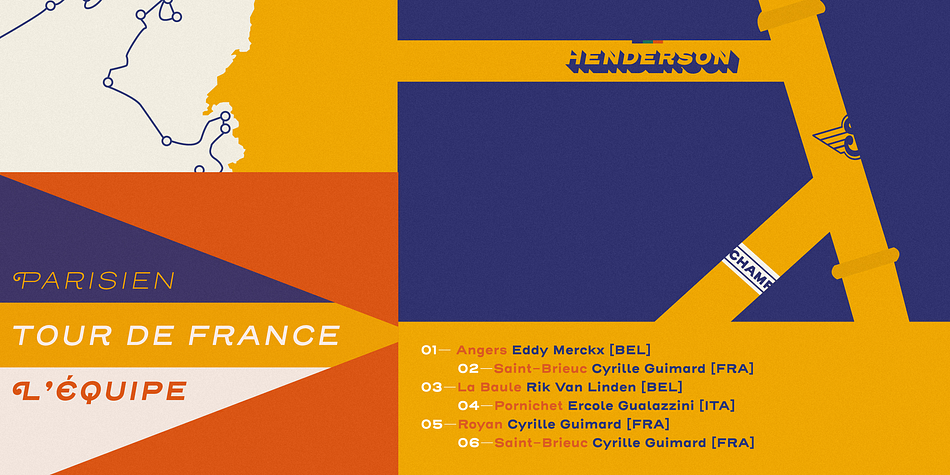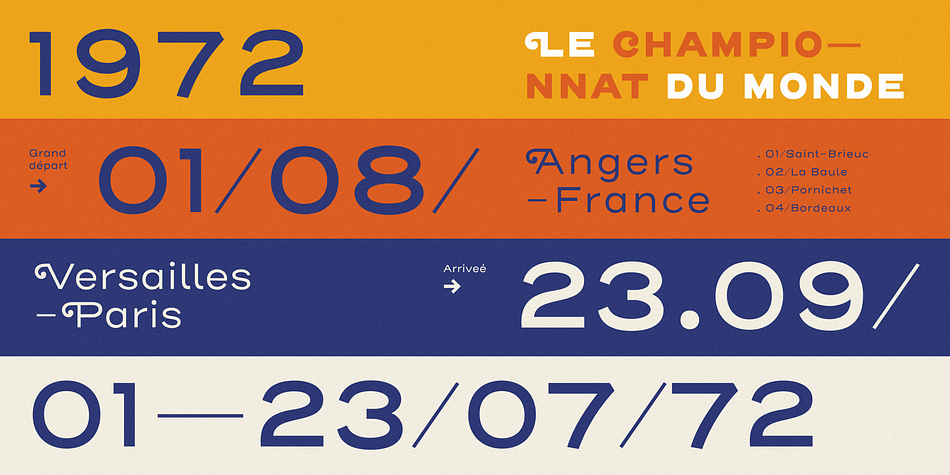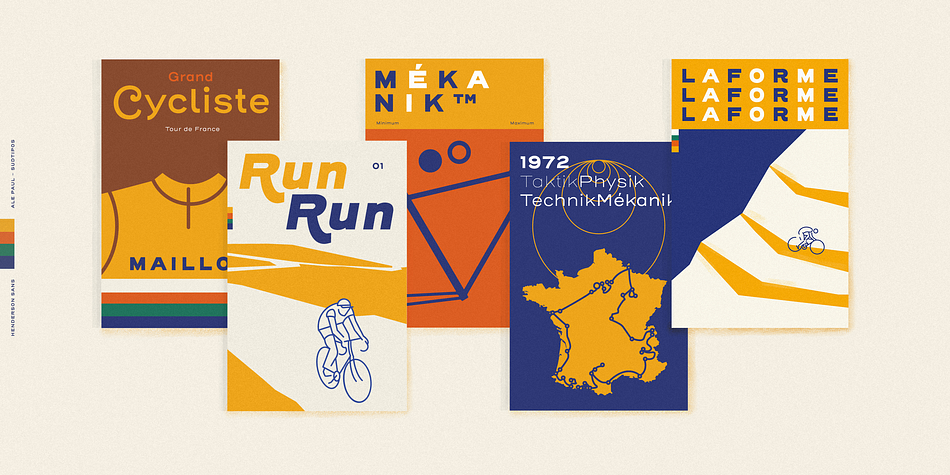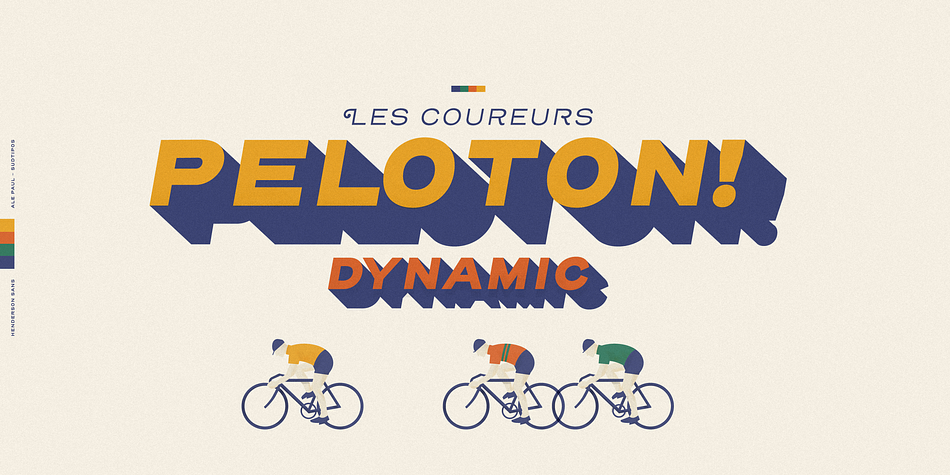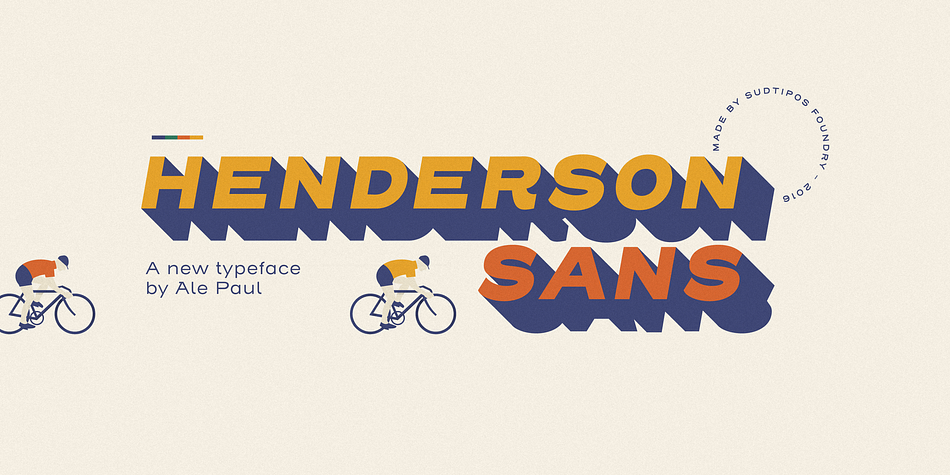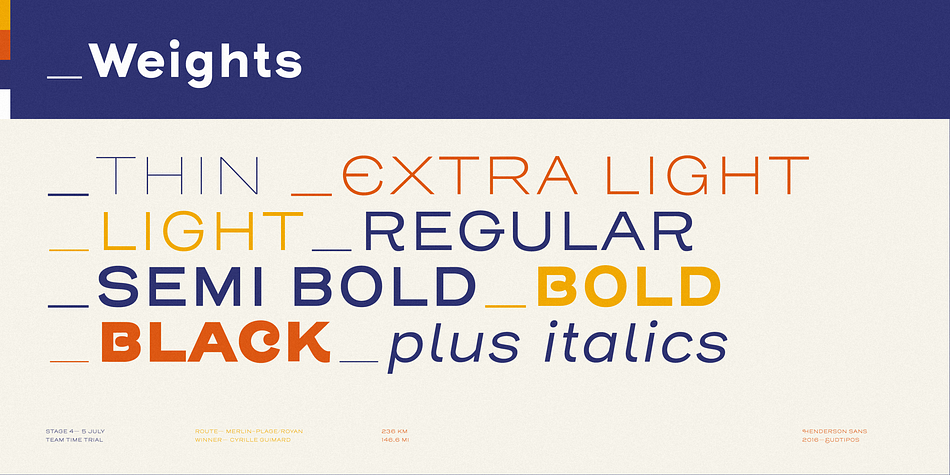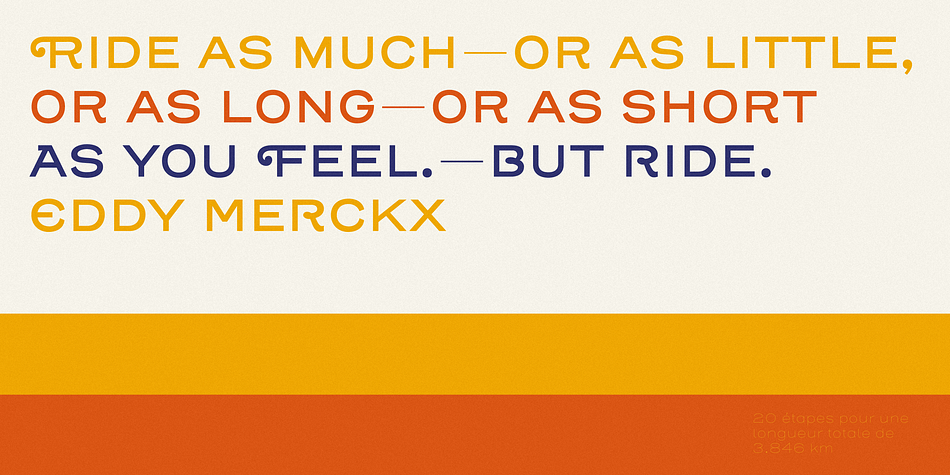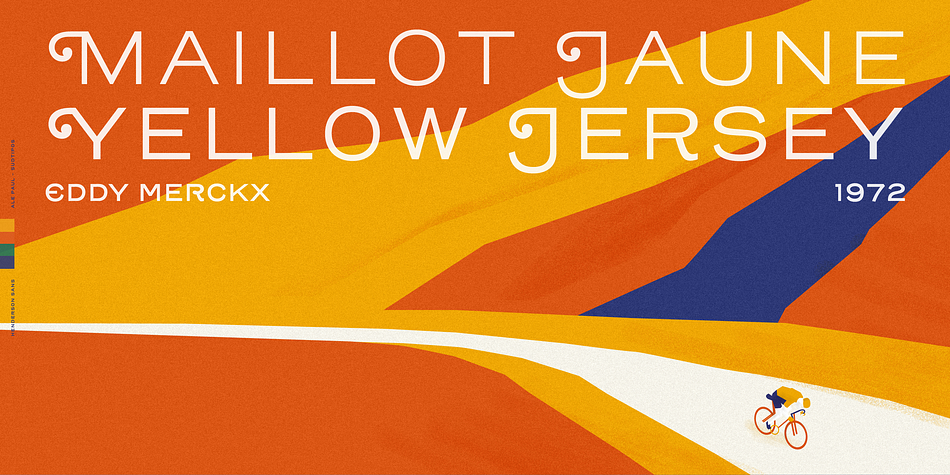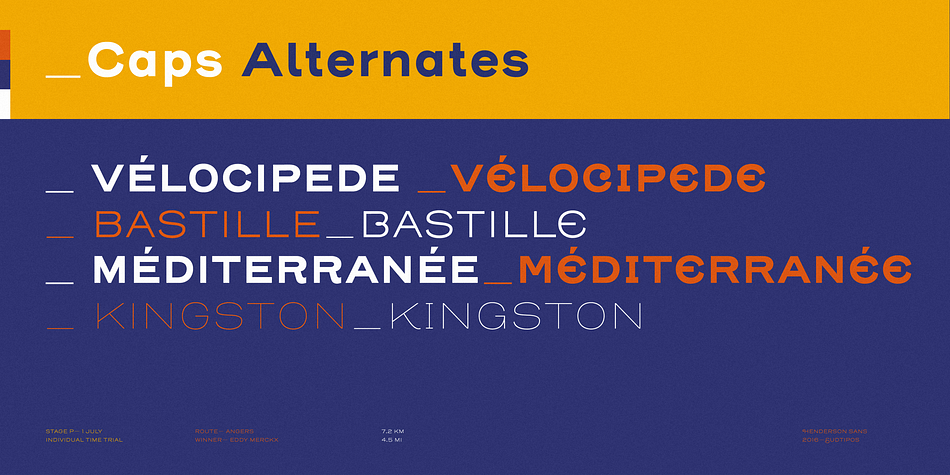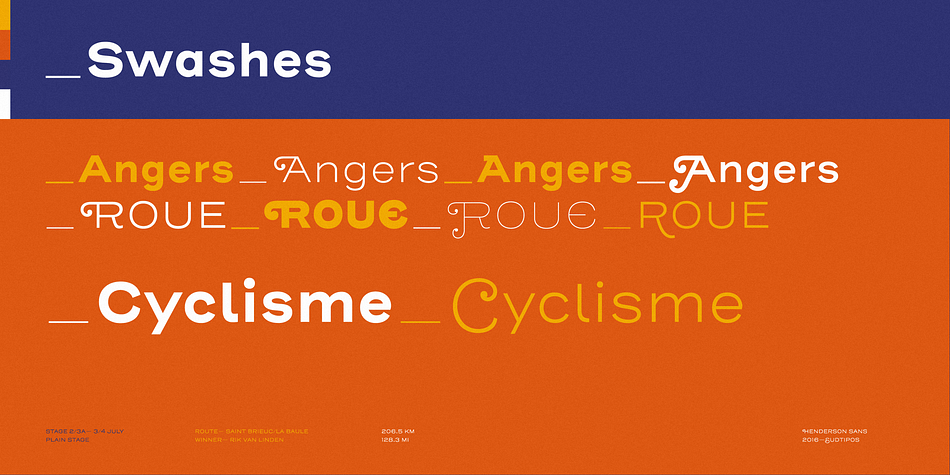
Designed by Alejandro Paul, Henderson Sans is a sans serif font family. This typeface has twenty-eight styles and was published by Sudtipos.
The first thought that crosses a type designer’s mind upon seeing a slab serif is: I wonder what it would look if it was serif-less. And so, after building Henderson Slab, I followed my instincts and gave it a sans serif companion.
Henderson Sans comes in seven weights plus italics, each of which casting an eye on the crafty lettering origins of what is now the ubiquitous mode of corporate communication. This sans serif is a glyph-for-glyph match for Henderson Slab, inheriting pretty much all of its features and quirks, like the wealth or alternates and swashed variants — simple, endearing or otherwise.